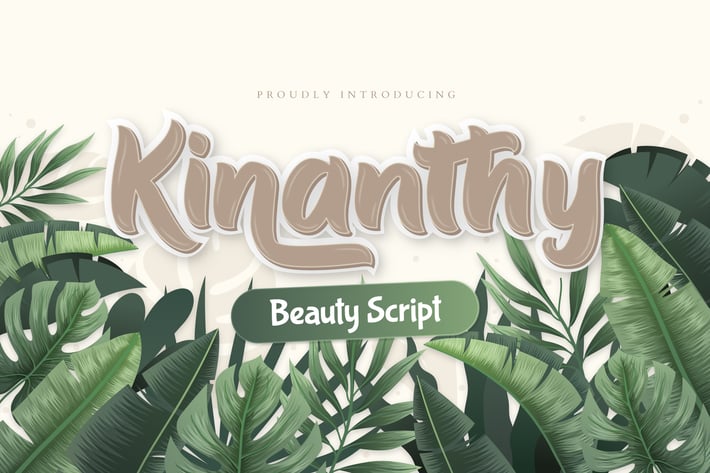
Kinanthy Beauty Business Font
Introducing Kinanthy - A perfect beauty script typeface for all your products that want to stand out from the rest. With its thick and cute shape, this font is a must have. The font is perfect for for movie title, logo, blogging, brand identity, book title, social media, branding, wedding invites, cards or simply use it in your next design project and suitable to use for many occasion.